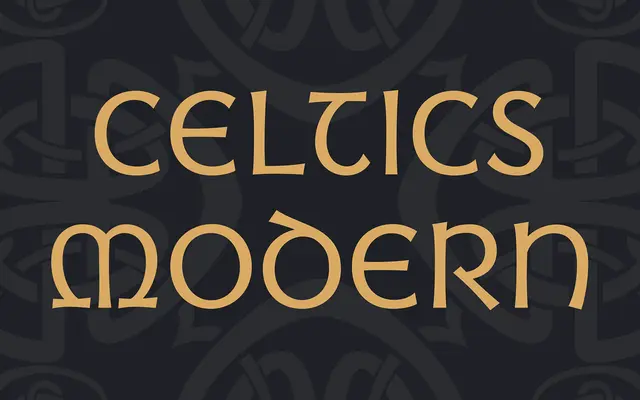
Celtics Modern
A modern reinterpretation of insular half-uncial script, drawing on early medieval Celtic manuscript lettering with a handwritten quality.
Taking insular half-uncial as its historical reference point, this face reproduces the rhythm and form of early Celtic manuscript lettering with a contemporary hand. The glyphs retain the spirit of ancient scribal work while avoiding strict historical reproduction, giving it flexibility for decorative and cultural-themed display use. Best suited to titles, branding or editorial contexts where a Celtic or medieval atmosphere is wanted without resorting to heavier blackletter traditions.
Rooted in insular half-uncial, the early medieval script tradition of Celtic manuscripts, this is best classified as blackletter given its historical script origins, though its handwritten character edges it toward display calligraphic styles.